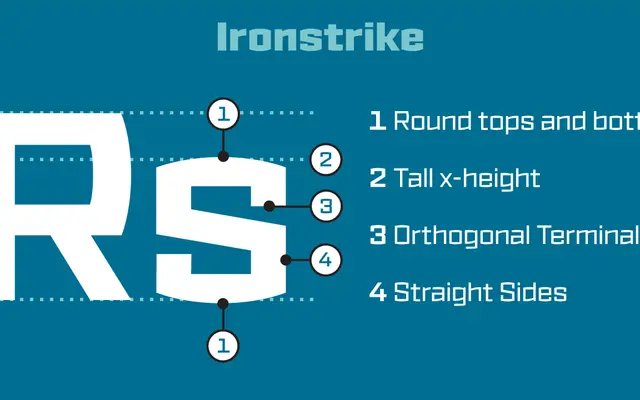
Ironstrike
A constructivist-inspired industrial sans in seven weights with a steep 17.5° italic and a matching 14-font stencil family for display use.
Ironstrike takes its cues from Russian constructivist propaganda lettering and industrial alphabets, using rigid shapes, modular forms and tall lowercase proportions to suggest strength and mechanical precision. Seven weights from light to ultra each carry a matching italic at an emphatic 17.5° slant, while a separate 14-font stencil family extends the range into full display territory. OpenType tabular figures and arbitrary fractions are included, and language support spans over 130 languages.
Ironstrike draws directly from industrial and Russian constructivist lettering traditions, with rigid modular forms, minimal curves, and tall lowercase letters that place it firmly in the display/industrial sans category.